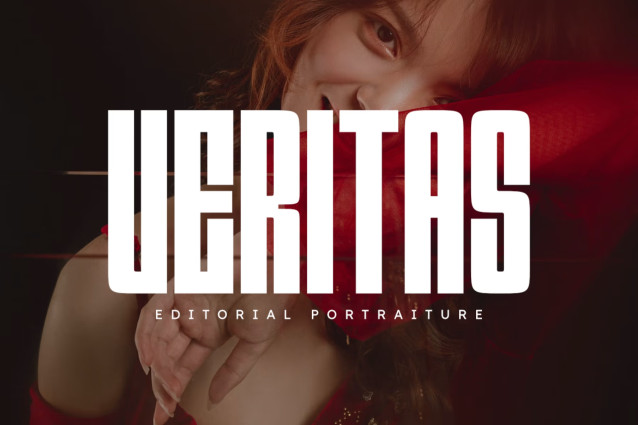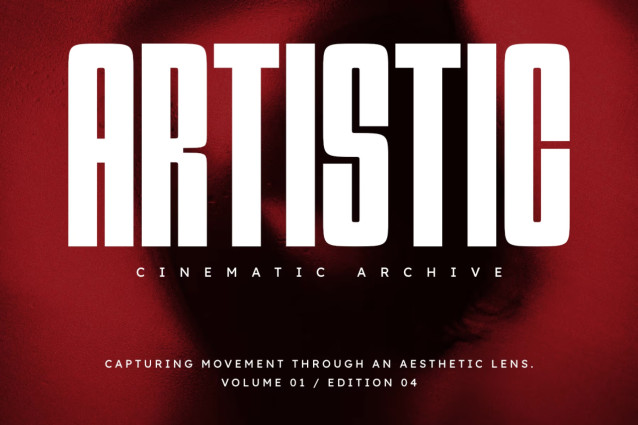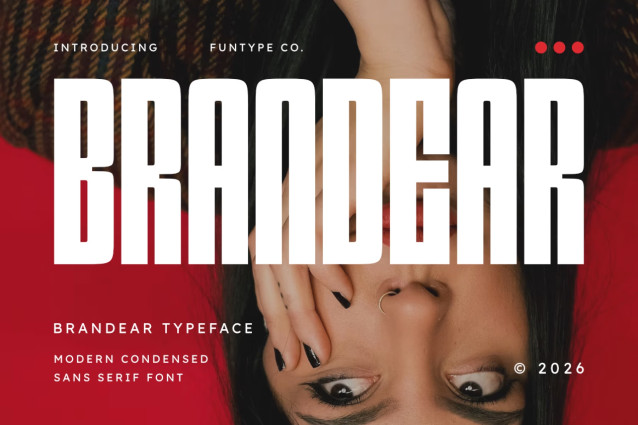
Brandear is a bold, high-impact, and modern condensed sans serif font, engineered to bring a strong visual presence, clean geometric proportions, and a trendsetting display aesthetic to contemporary graphic layouts. Featuring tall vertical stems, smooth rounded outer corners, and crisp rectangular inner counters, Brandear introduces an assertive editorial magazine identity, high-concept branding showcase, cosmetic presentation, and prominent digital media design built to claim absolute visual focus.
This font family is the ultimate choice for creative directors, publication designers, and digital content creators looking to implement a distinct typography identity for major text hierarchies. Whether you are developing bold corporate enterprise logotypes, lifestyle editorial covers, cosmetic packaging, cinematic movie title sequences, event posters, or prominent digital web banners, Brandear stands out with supreme legibility and commanding aesthetic confidence.